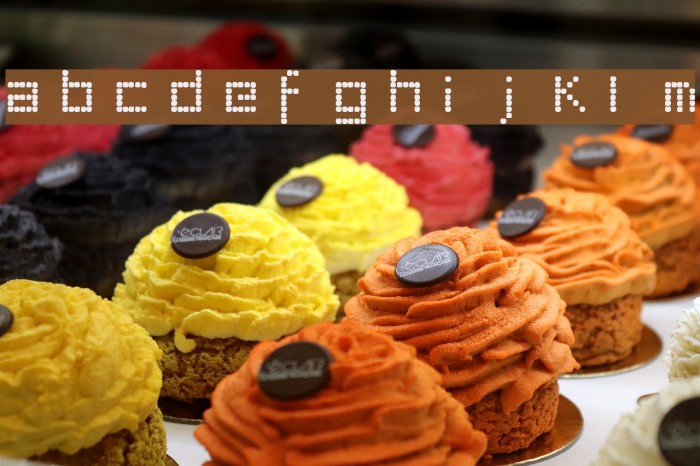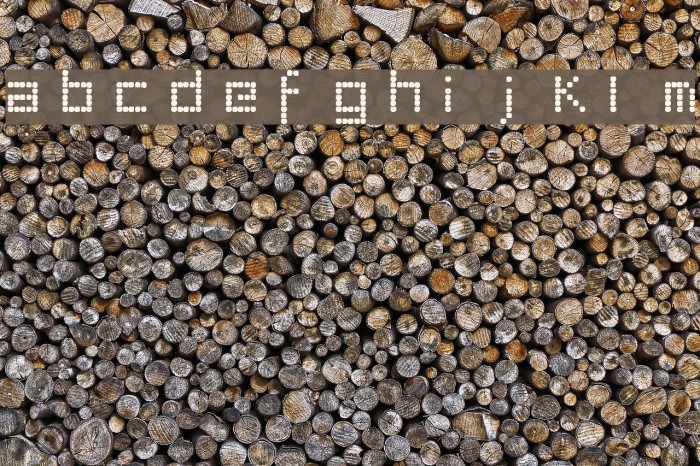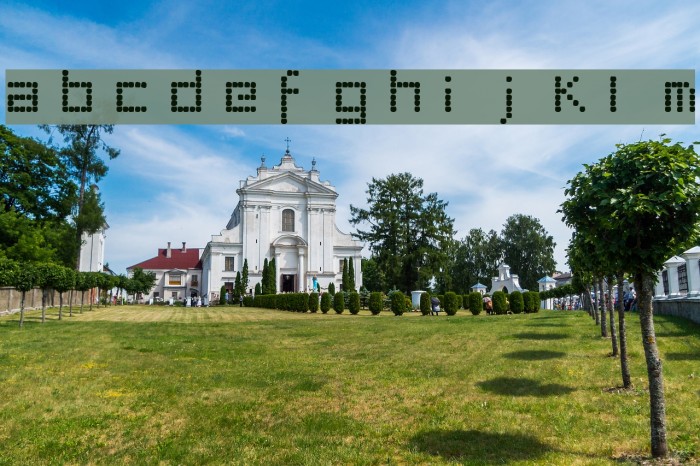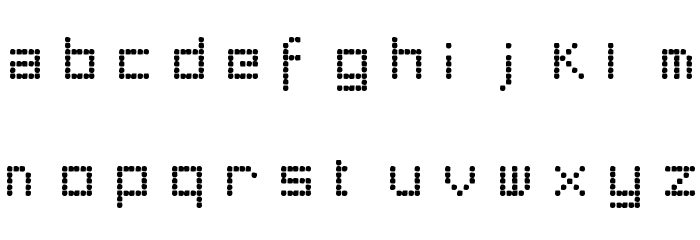
detachable penis Font
detachable penis Description
This font is a unique and creative design composed entirely of small dots forming each character. The dotted style gives it a digital or pixelated appearance, reminiscent of LED displays or retro video game graphics. Each letter is clearly defined, with consistent spacing between the dots, creating a uniform and cohesive look. The font maintains a modern and playful aesthetic, making it suitable for projects that require a tech-savvy or futuristic vibe. Its distinct style ensures high legibility while adding a touch of whimsy and innovation to any design.
| Use Case | Logos, Headlines, Digital displays |
| Proposed Projects | Ideal for digital displays, tech-themed designs, video game graphics, and creative posters. |